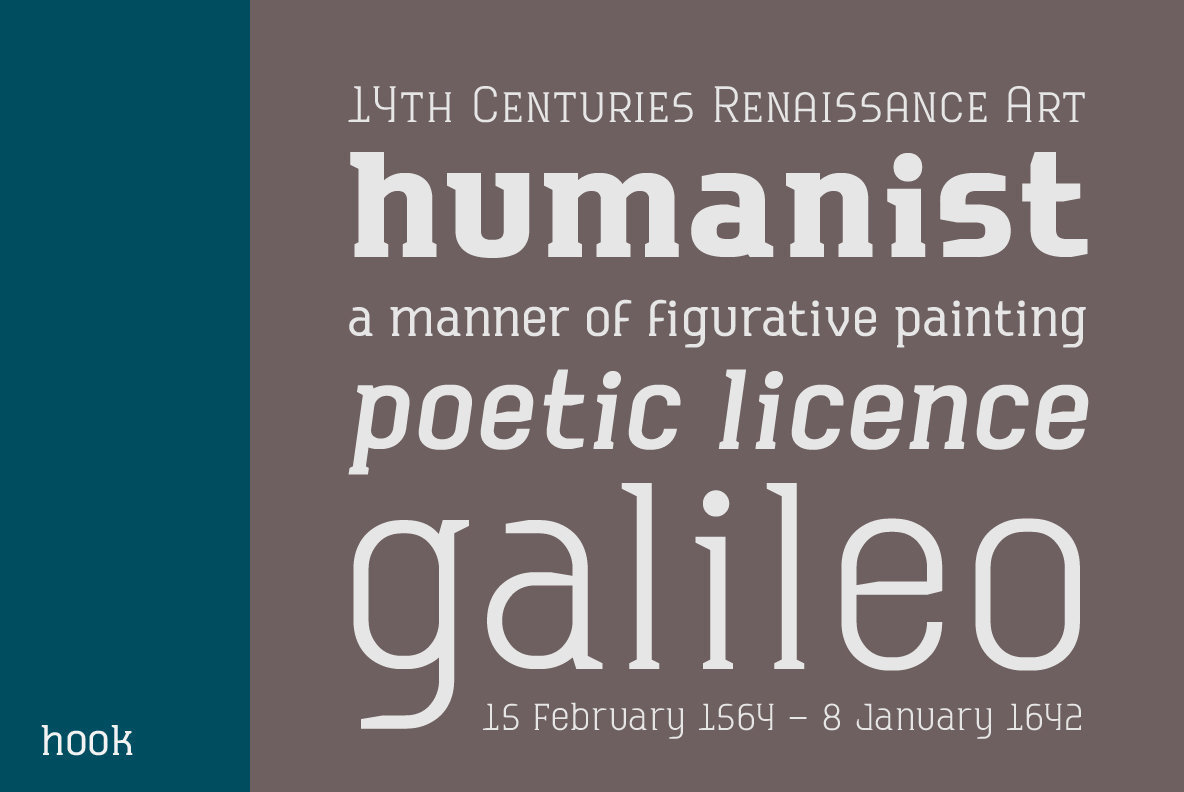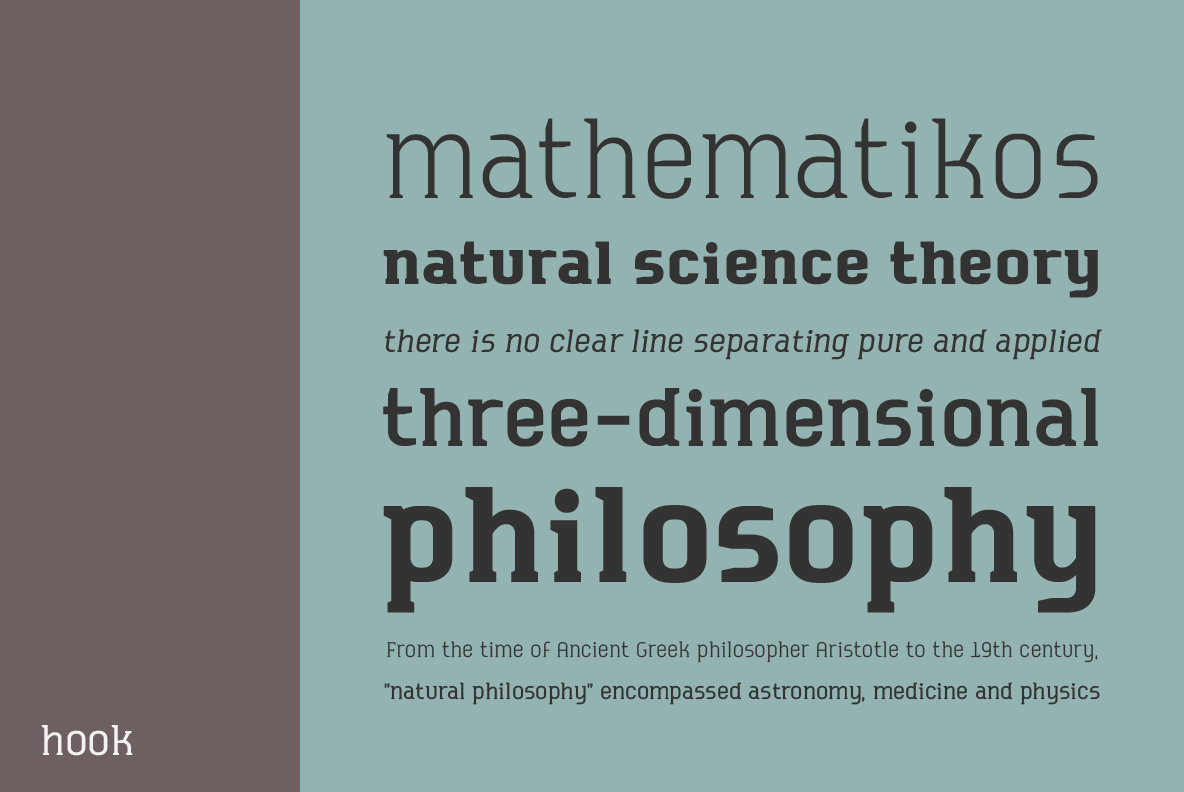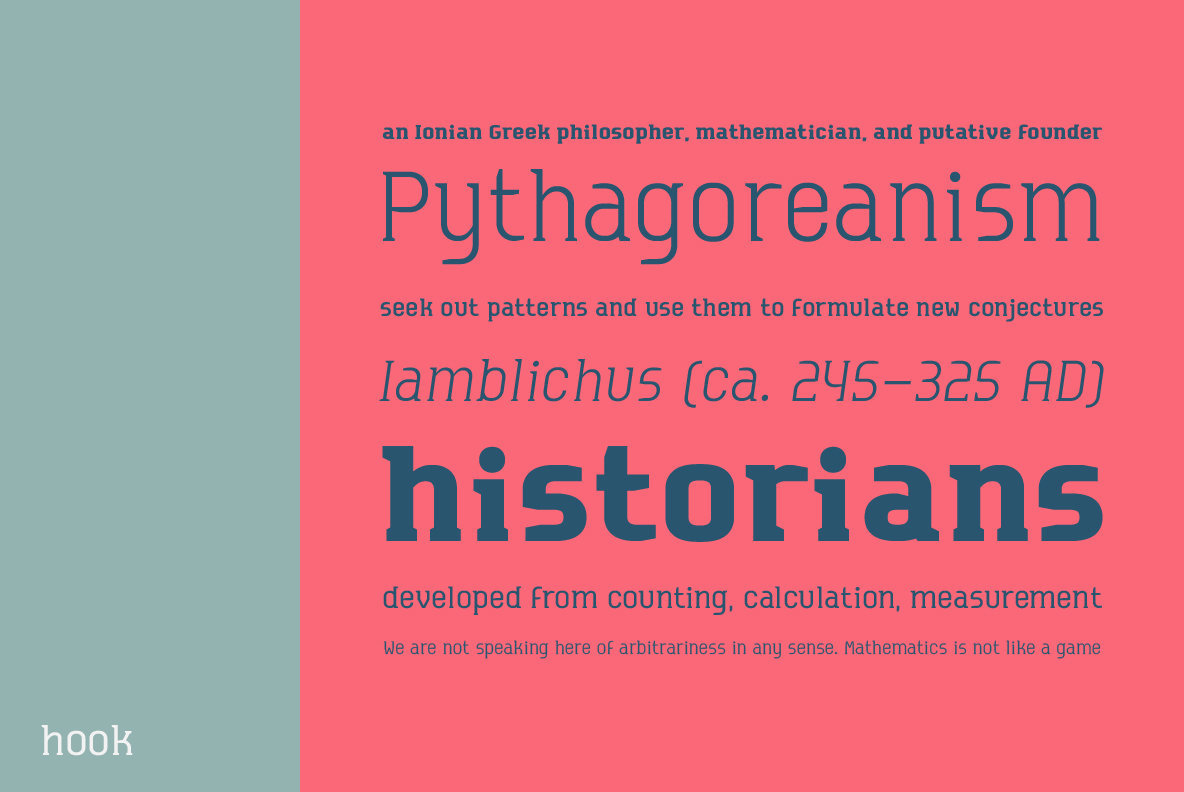
Hook is a serif typeface that includes five weights from light to extra-black. It comes loaded with OpenType features along with Thai language support.